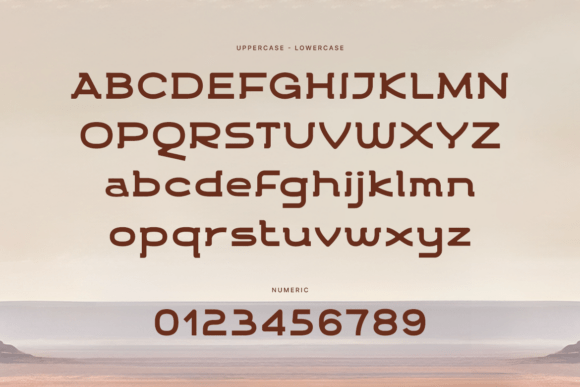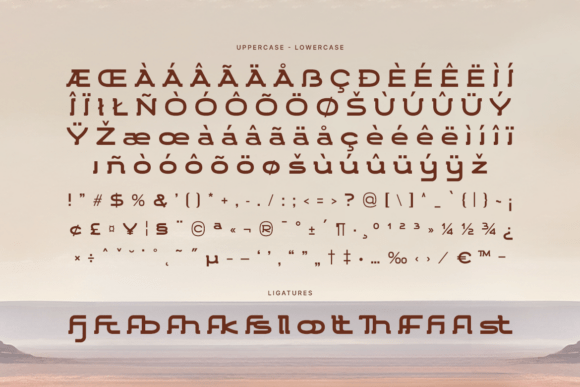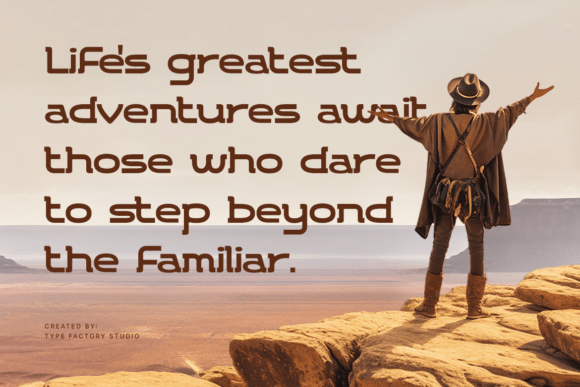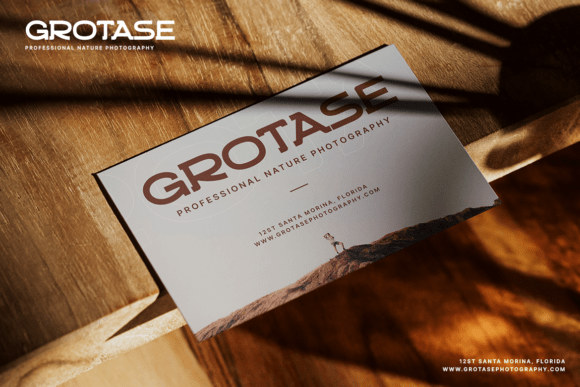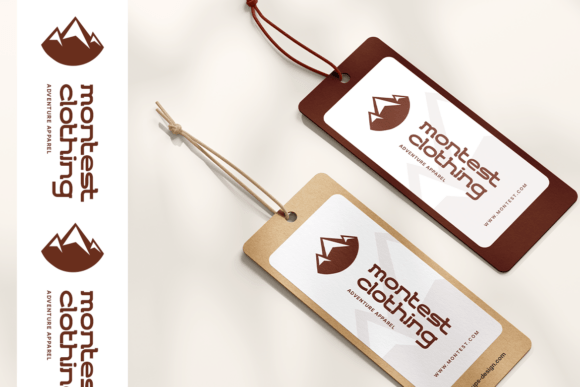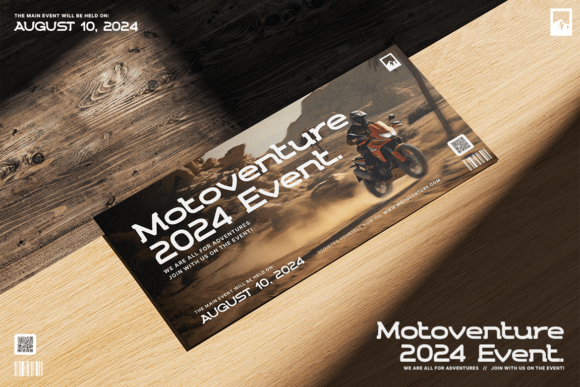
Introduction to Rosex Font
Rosex is a bold, modern, and distinctive sans-serif display typeface with a sleek, adventurous spirit.
Drawing inspiration from the vast, rugged landscapes of science fiction and classic Westerns, its unique aesthetic combines strong geometric forms with subtly rounded edges and powerful, unexpected cuts Perfect for movie titles, branding, apparel, and video game logos, Rosex adds a commanding, futuristic, and adventurous touch to your projects.